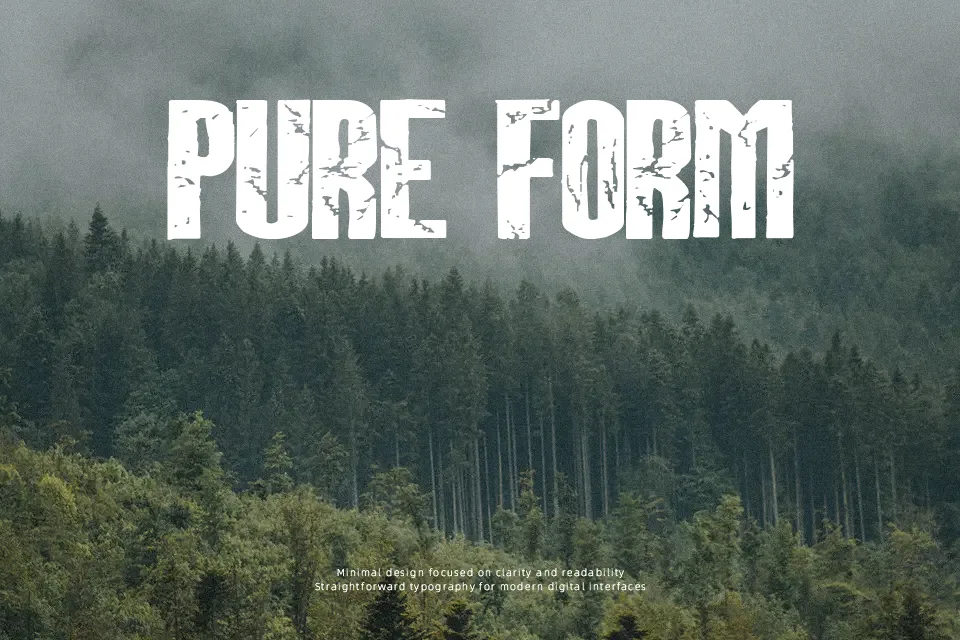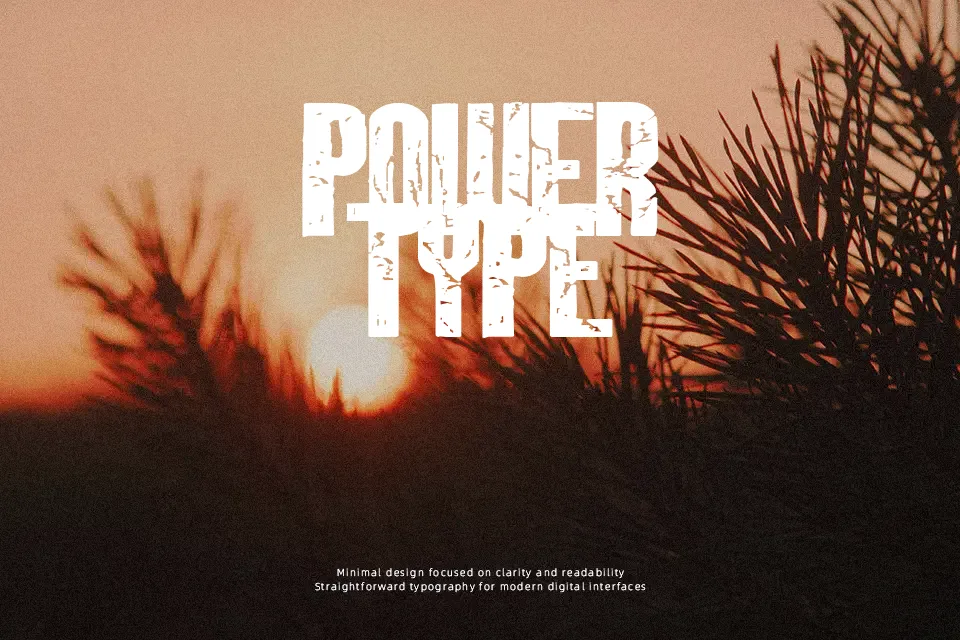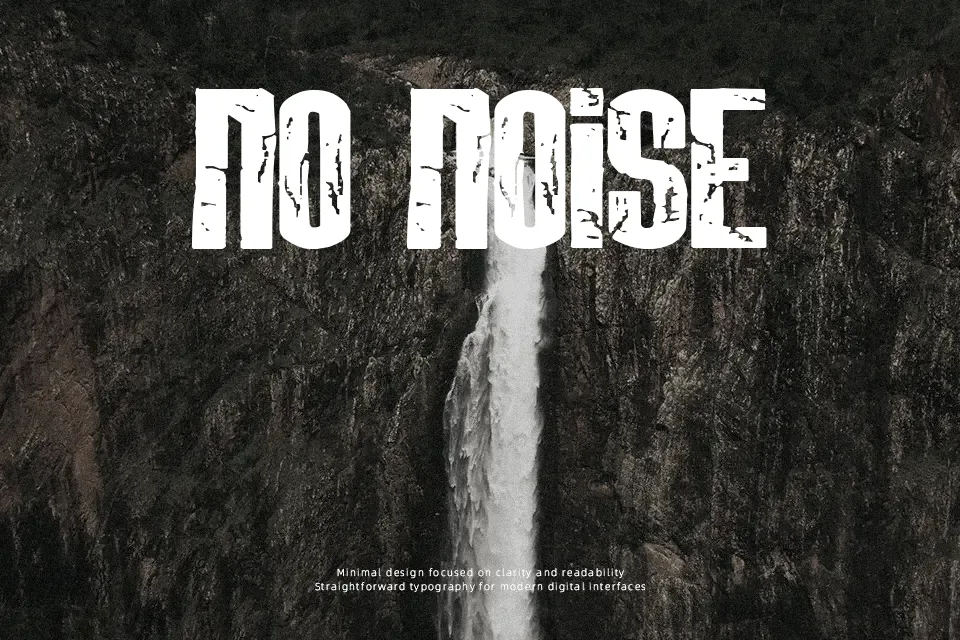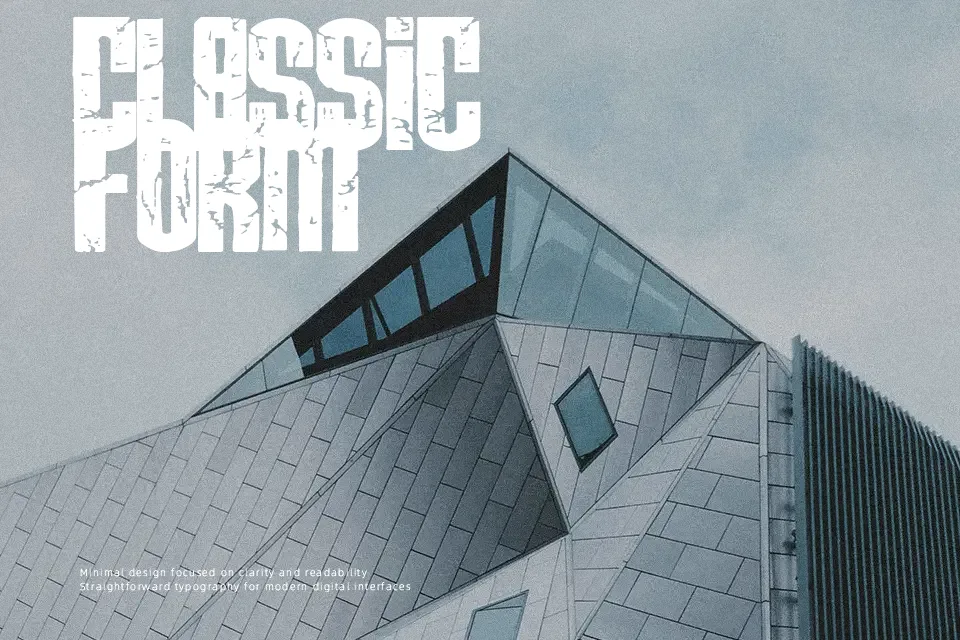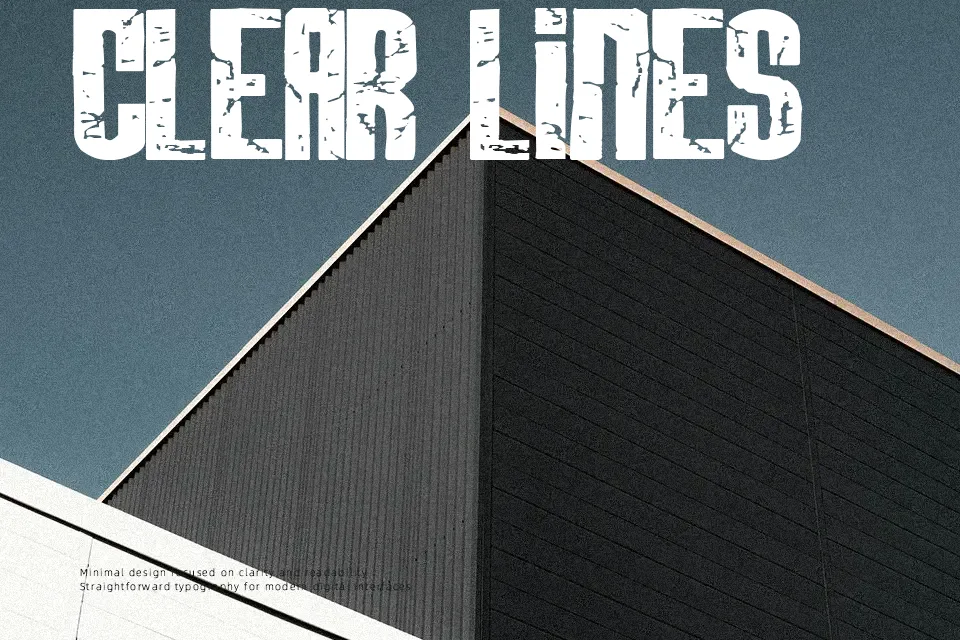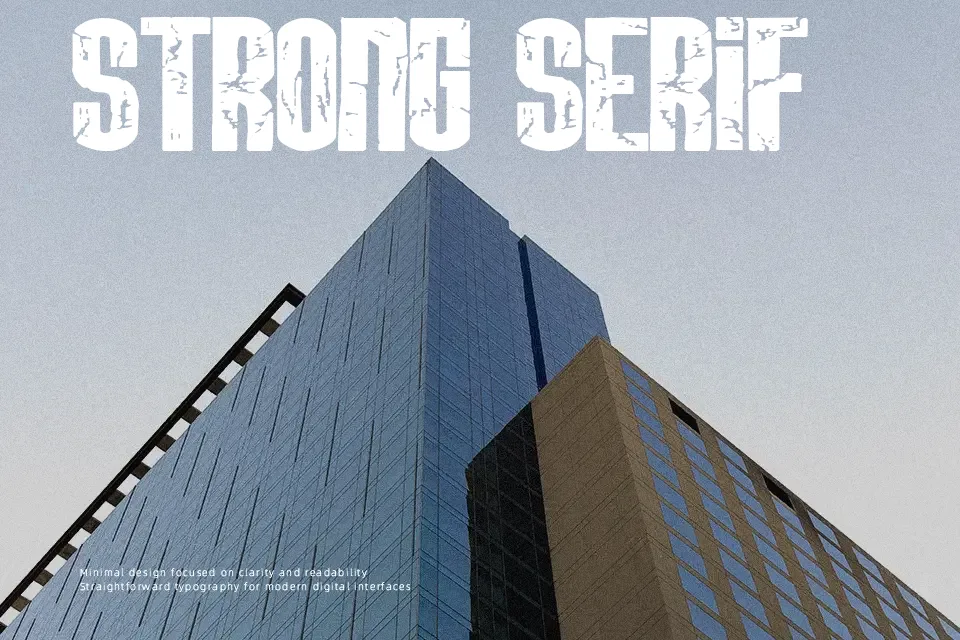
Breaksteel Font
Designed by Gersan Borge A
Breaksteel is a heavy, all-caps display font with corroded strokes, broken outlines, and uneven edges that read like rusted metal or cracked concrete. The letters are dense and compact, with tight spacing and a chunky structure that keeps short headlines readable while still feeling chaotic and aggressive. It works nicely for music covers, skate or gaming logos, and event posters where you need a rough, eroded aesthetic rather than something clean or corporate. For longer paragraphs, UI, or small captions it becomes tiring and messy, so it makes more sense as a display accent than a workhorse text face.
metal or hardcore band logos and titles,
extreme sports or gaming posters and banners,
grunge or industrial-themed branding accents,
horror or dystopian film headlines and key art
body text or long reading layouts,
formal corporate or editorial branding systems,
clean tech or minimalist UI design,
small captions where the erosion reduces legibility
Perfect for branding, film, and gaming, with a bold and display style.